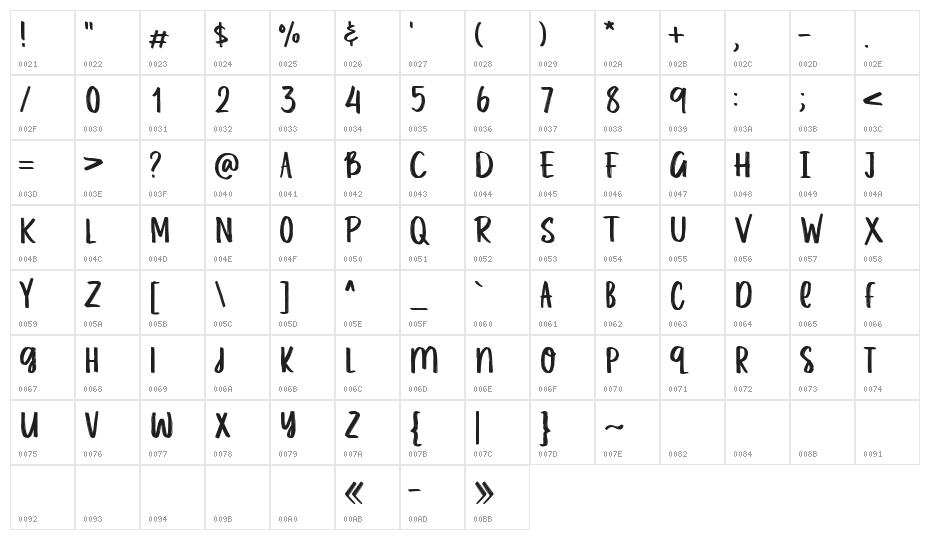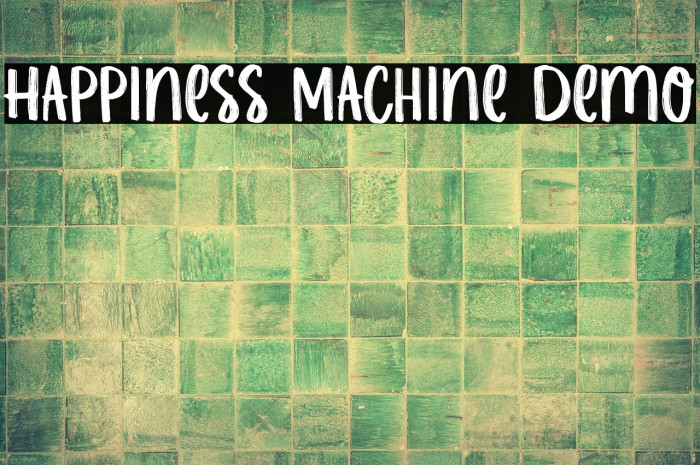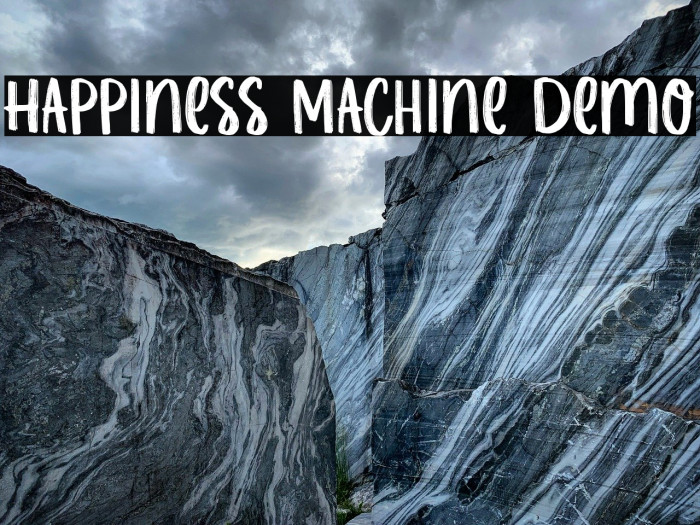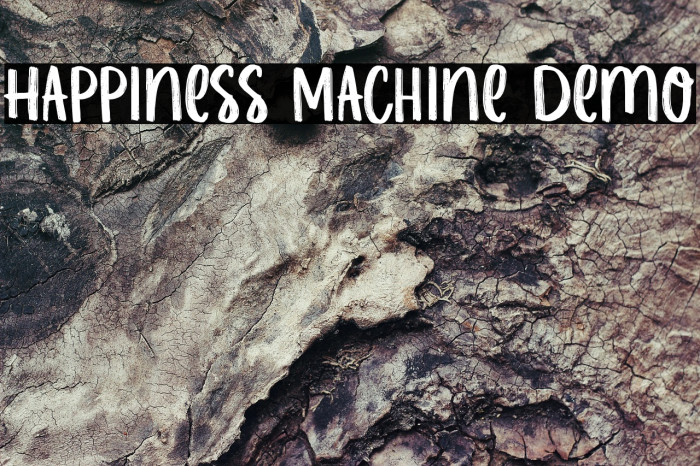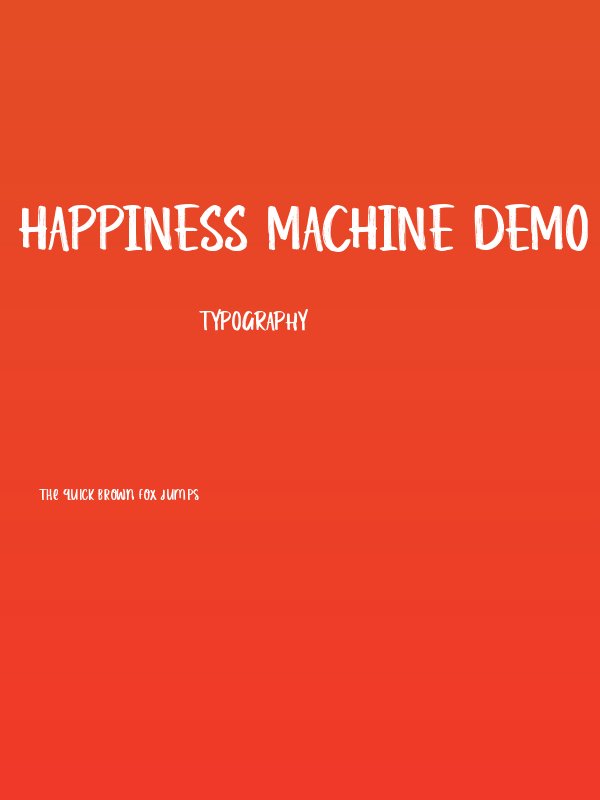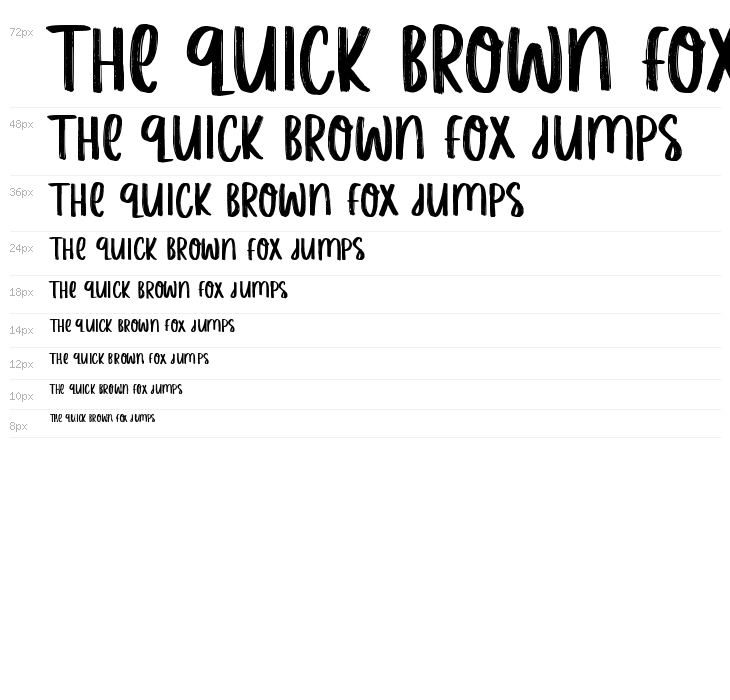
Happiness Machine Demo Font
Happiness Machine Demo Description
This font features a bold and expressive handwritten style, characterized by its thick, brush-like strokes and slightly irregular letterforms. The uppercase and lowercase letters maintain a consistent height, giving the text a cohesive appearance. The numbers and special characters are crafted with the same boldness, ensuring uniformity across all characters. The font exudes a playful and energetic vibe, making it ideal for projects that require a personal touch. Its distinct style is both eye-catching and legible, suitable for a variety of creative applications.
| Proposed Projects | Ideal for greeting cards, posters, branding, and social media graphics. |